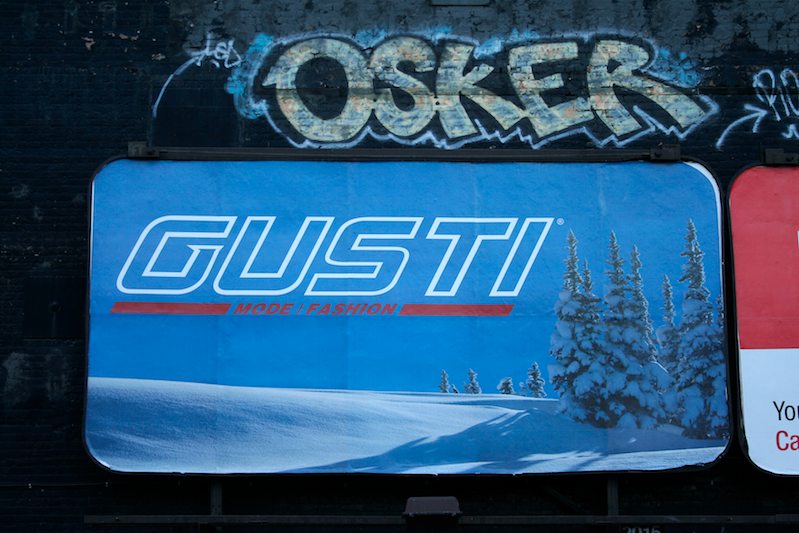
One of the things I enjoy about urban space is the way words collide. Sometimes they engage in smart conversation, sometimes they overlap in strange harmonies, sometimes they shout simultaneously and dissolve into the general noise.
Here it looks like Osker is reacting to the graphic energy of Gusti. One’s rough, one’s polished; one tilts forward and the other leans back. It may just be an artful coincidence, but it’s collisions like this one that make walking through the city so invigorating.